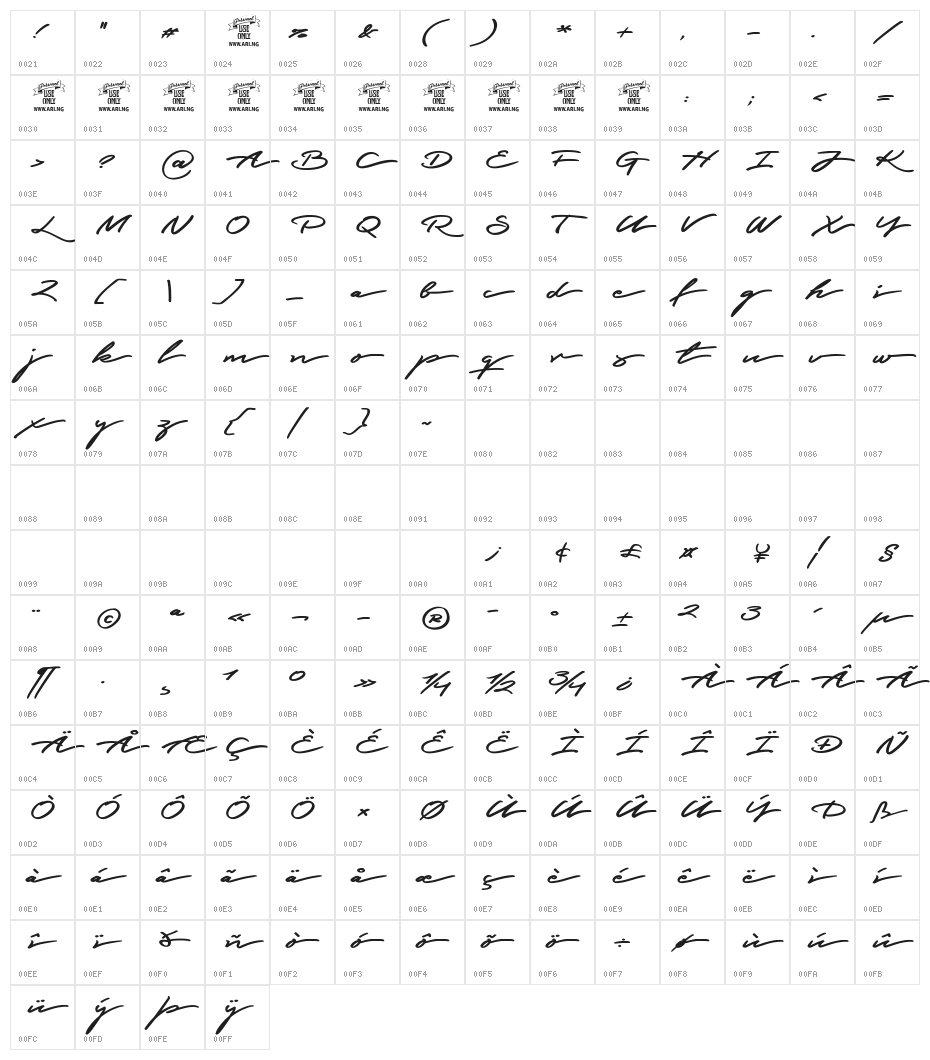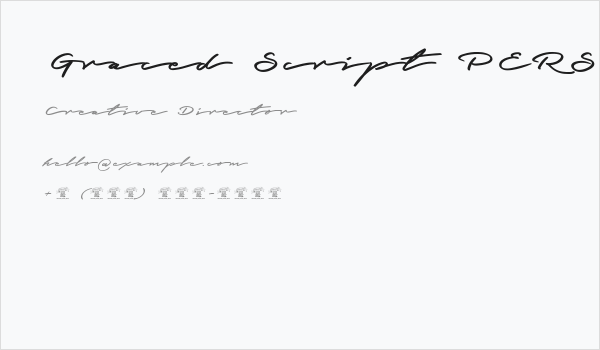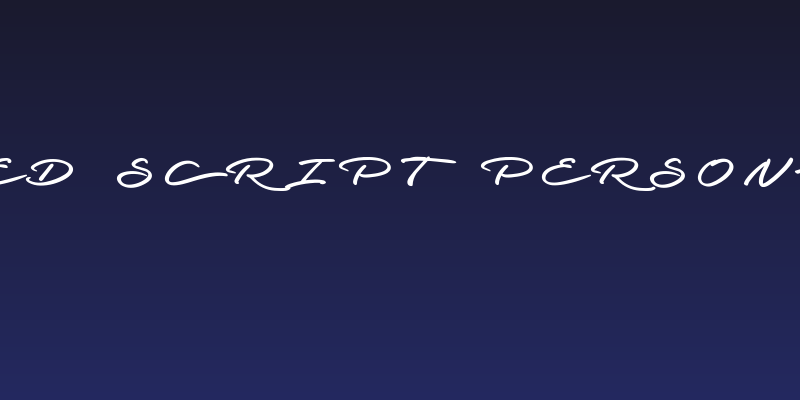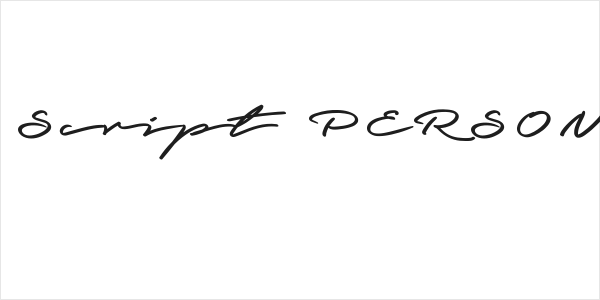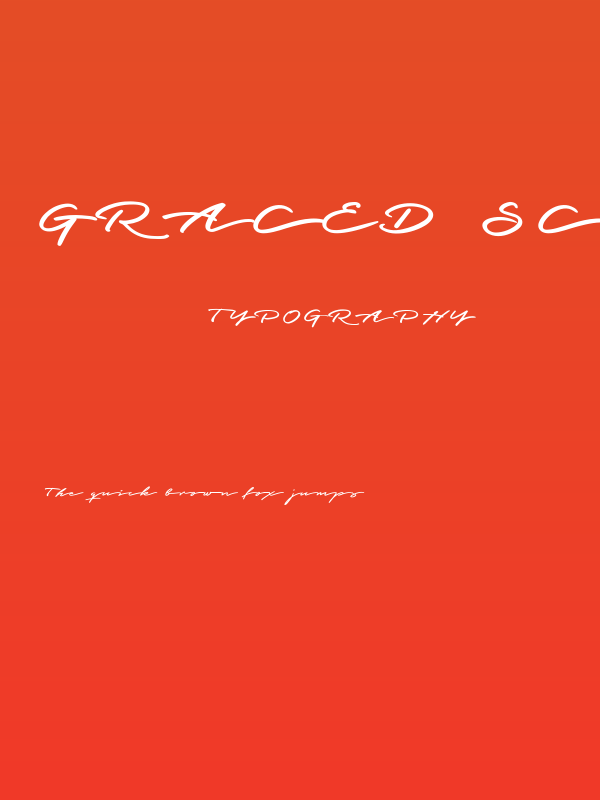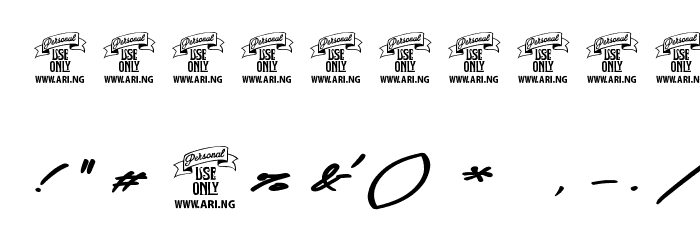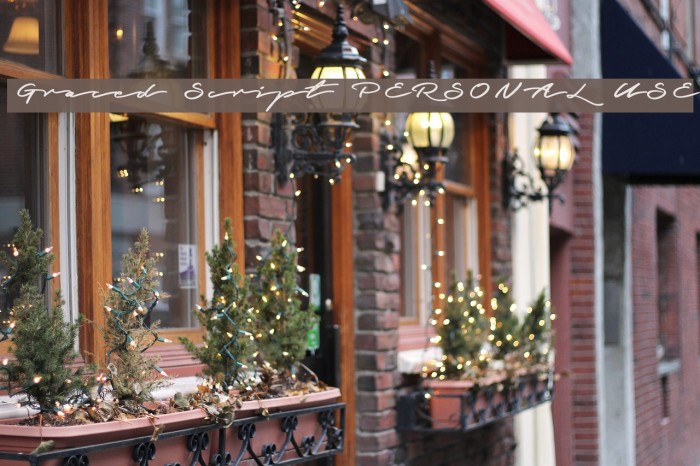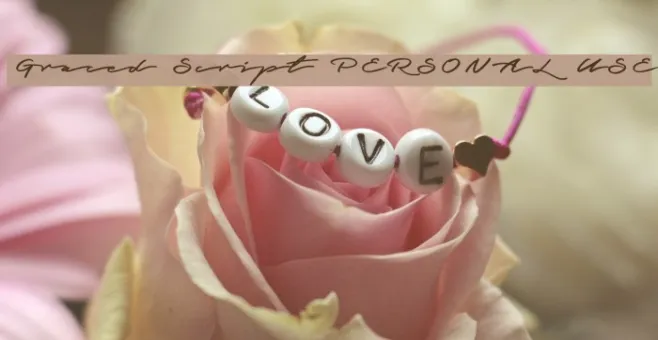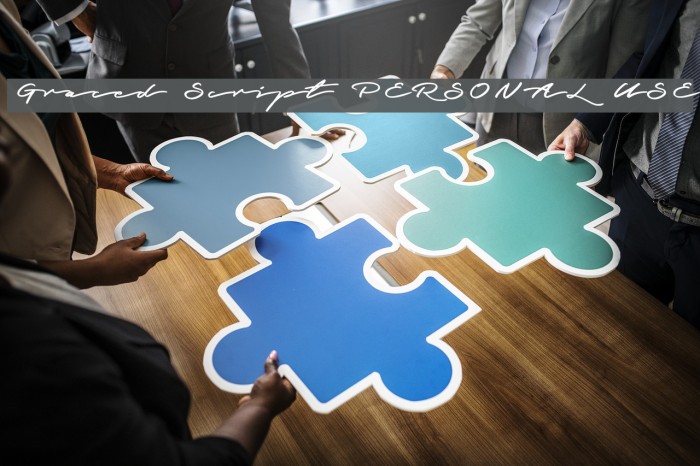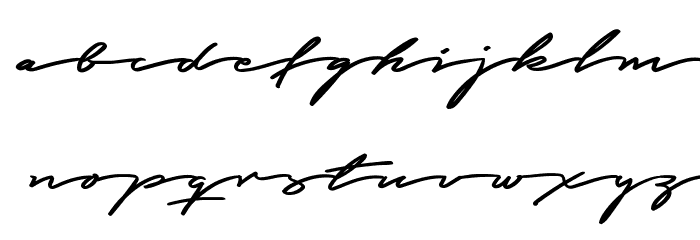
Graced Script PERSONAL USE Font
Graced Script PERSONAL USE Description
This elegant script font features a flowing, cursive style with smooth, connected strokes that emulate natural handwriting. The uppercase letters are slightly more ornate, with graceful loops and curves, while the lowercase letters maintain a consistent, fluid motion. The font exudes a sense of sophistication and charm, making it ideal for projects that require a personal touch. The characters are well-proportioned, with a slight slant that enhances the handwritten feel. The special characters and numbers are designed to match the overall aesthetic, ensuring a cohesive look across all text elements.